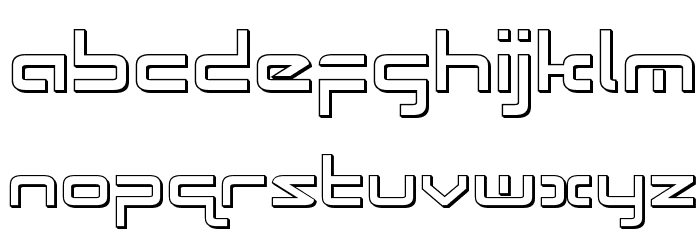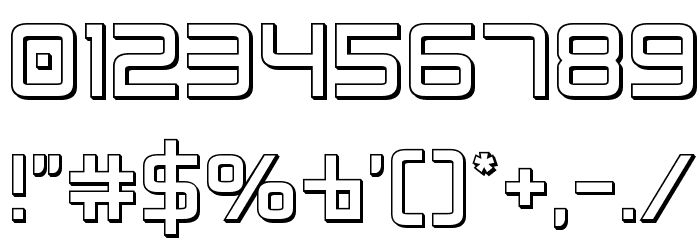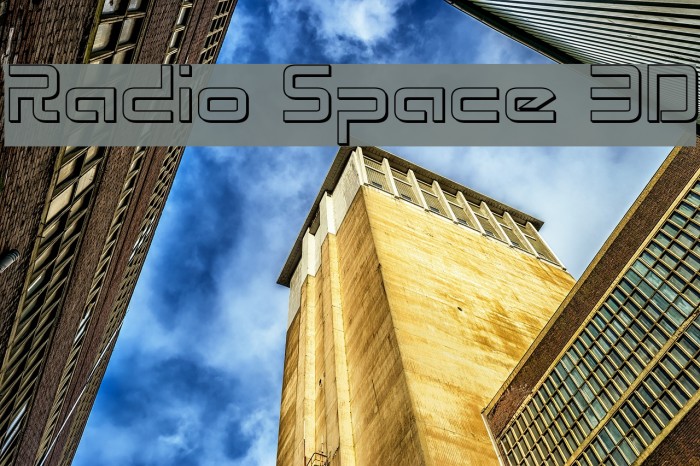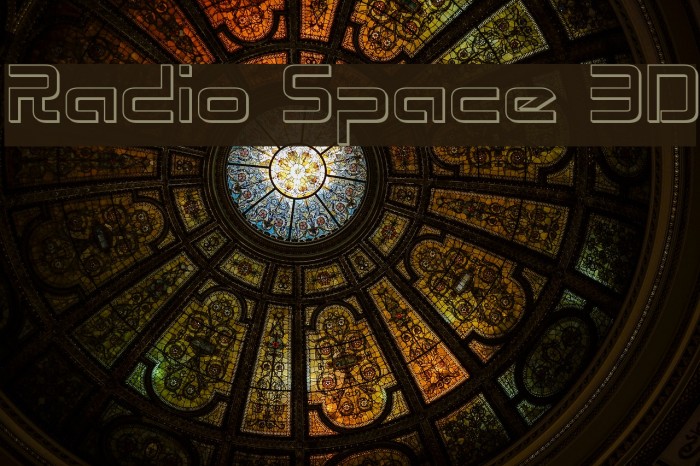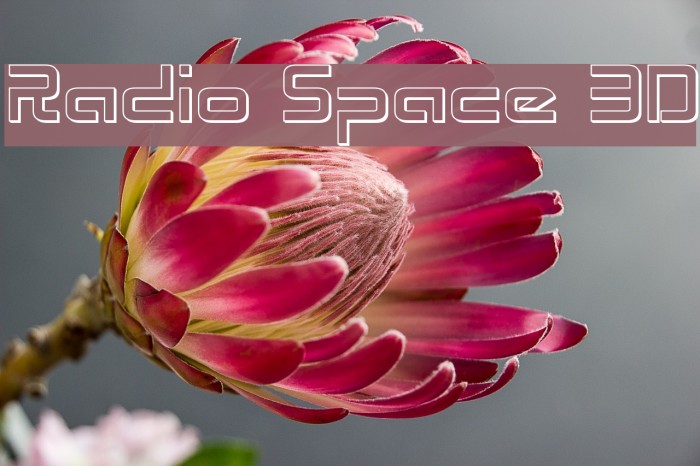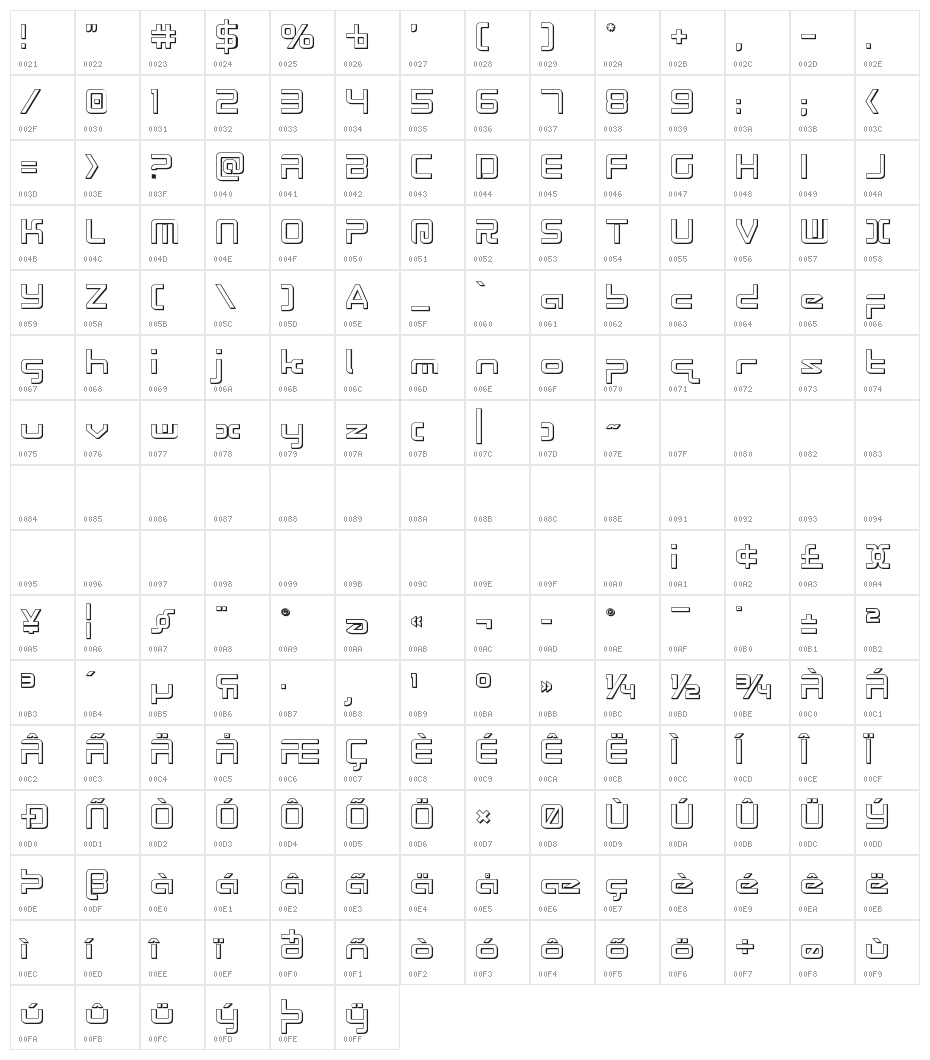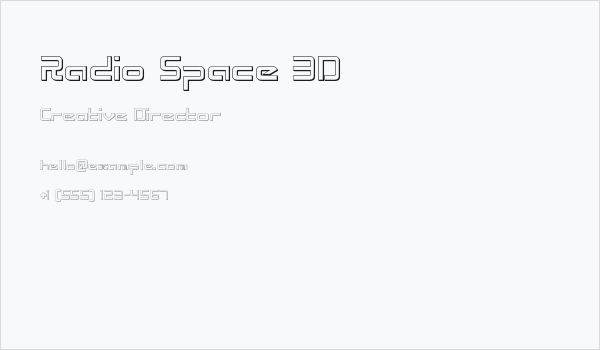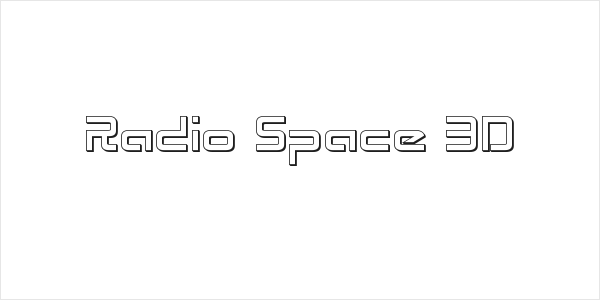
Radio Space 3D Font
This font features a futuristic, geometric design with a 3D effect, characterized by its hollow, outlined letters. The uppercase and lowercase letters maintain a consistent style, with sharp angles and clean lines that give it a modern, space-age appearance. The numerals and special characters follow the same design principles, ensuring uniformity across all glyphs. The font's unique aesthetic makes it stand out, ideal for projects that require a bold, technological look.
A futuristic, geometric font with a 3D outlined style.
- Proposed Projects: Ideal for sci-fi themed posters, video game titles, technology branding, and futuristic event invitations.